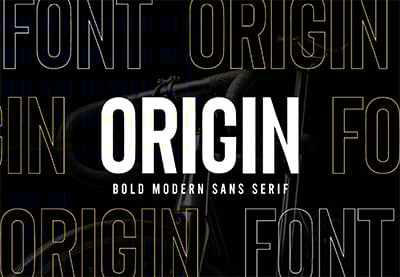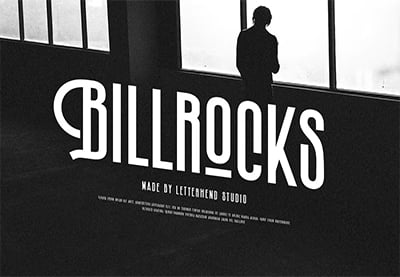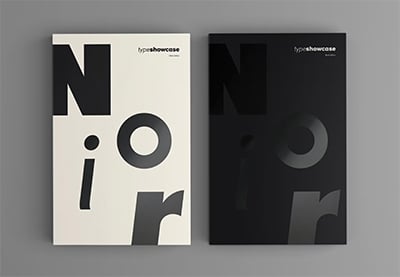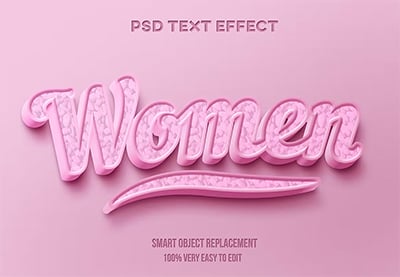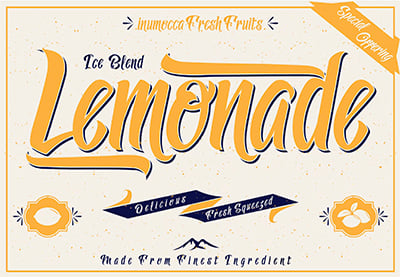
S in Different Fonts, Styles, and Text Effects
In this article, I'll show you the letter S in different fonts and effects. This is a great way to explore new creative assets! In this article, I'll show you the letter S in various fonts and styles so you can get inspired.
1. S in Different Styles, Retro/Vintage
This Retro Vintage text effect is applied to the font Rockinsoda. This letter S font style is different from your typical clean-cut S. The unevenness on the lower part of the S makes it look more relaxed. The old-style signage effect is whimsical and gives the S letter a stylish font display.
2. S in Different Styles, Papercut
Papercut text effects give an awesome illusion of depth. If you're using a visually busy effect, go for a simple and versatile font like Origin. The textures on the different levels of cut paper are super realistic. You can try this effect with different S letter style fonts.
3. S in Different Styles, Old Movie Title
Condensed letter S font styles are tricky to design because of the proportion. Billrocks is a sans serif display font that's so representative of old movie font designs. It's one of the most original fonts for S. The text effect applied to it is inspired by retro drama genre movies. This black and white Old Movie title effect gives the letter s font style a big oomph and transports us to another time.
4. S in Different Styles, VHS Distortion Text Effect
Glitching effects are notorious for looking a little fake. Glitching is almost synonymous with random. This glitch text effect is applied to an S letter in a stylish font to achieve the broken pixels VHS distortion. The letter S font used here is Noir Pro, which has contemporary lines and is inspired by early 20th century typefaces.
5. S in Different Styles, Women in Pink Effect
This Women Pink text style comes in a lovely bubble-gum pink. It's paired with Lemonade, a handwritten font to add a relaxed feeling to the character. It's one of the most original fonts for S. You could pair the text effect with the S letter in different fonts from Envato Elements.
6. S in Different Styles, Papercut Text Effect
Scissor cutouts aren't always precise. This Papercut text effect mimics the way paper lifts up at the edges very realistically. The effect is paired with the font Hitchcut, inspired by Hitchcock and the movie Vertigo. This type of S font style has very straight lines, perfect for scissors! It's also playful and childlike, so it complements the text effect perfectly.
7. S in Different Styles, Toast 3D Effect
Cool and cartoon-like text effects are hard to find. This Toast 3D text effect imitates the puffiness of bread so well. The S letter is in stylish font BoldenVan, and it has a rounded and bold look. This pairing could be used as a cartoon intro or in a children's book.
8. S in Different Styles, Vintage Text Destroyer
Disintegrating and scattered text effects are tricky to create because they need to look random. This Vintage Text Destroyer effect creates pulverised and dusty edges that give the S font style an added cool effect. The S font style is Calasans, a layered font that can give you multiple awesome looks. It's one of the coolest S letter styles you'll find online.
9. S in Different Styles, Letterpress Print
Text effects that try to replicate the handmade look are not always successful. Letterpress printing is especially hard because texture and ink consistency are key to creating a unique look. This super-realistic Letterpress Print Kit even includes the overlay effect the same way it would happen on a real machine.
Since letterpress has been around for over a hundred years, we paired it with an S font style inspired by posters of the early 20th century. Fonseca is geometric and modern, with a retro look. This pairing is great for editorial and packaging projects.
10. S in Different Styles, Soap Bubbles
If you're looking for an S letter in a stylish font, Chelsy is a great handwritten sans serif that's highly legible. This S font style is relaxed and informal. Start exploring different S fonts like this one. Here it is paired with a Soap Bubbles text effect that transforms any font into having rounder edges and enhancing the bubble look even more.